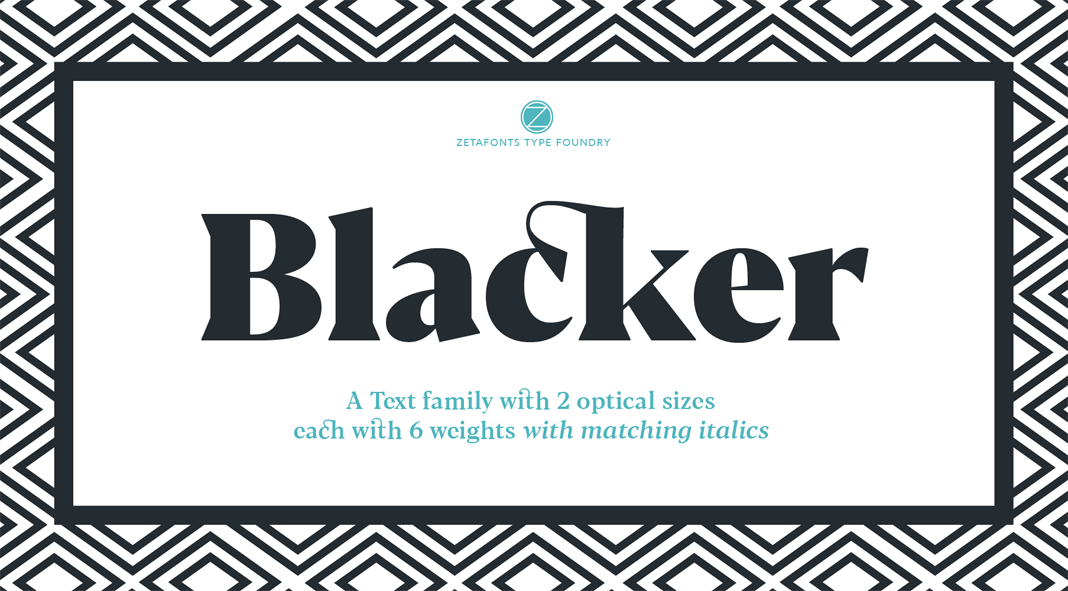
Blacker, a wedge serif font family from Zetafonts Type Foundry that comes with two free fonts and numerous typographic features.
Designed by Cosimo Lorenzo Pancini and Andrea Tartarelli for Zetafonts Type Foundry in 2018, Blacker is a wedge serif font family. Its typeface is characterized by a high contrast and sharp wedge serifs. Blacker consists of two subfamilies: a display version with tighter kerning, even higher contrast and sharper edges as well as a text version that offers better readability and screen rendering with a bit lower contrast. Both subfamilies come in six weights ranging from light to heavy plus matching true Italics. Furthermore, both versions include a free demo style. The Blacker font family has been designed for all kinds of editorial work, advertising, branding, etc.
Equipped with an extended character set, the family supports multiple languages including Latin and Russian Cyrillic alphabets. Furthermore, the huge range of OpenType features includes four sets of figures, small caps, fractions, superior & inferior figures, alternate forms, and discretionary ligatures, just to name a few. As already mentioned, the family comes with two free fonts. For further information, just follow the link below.